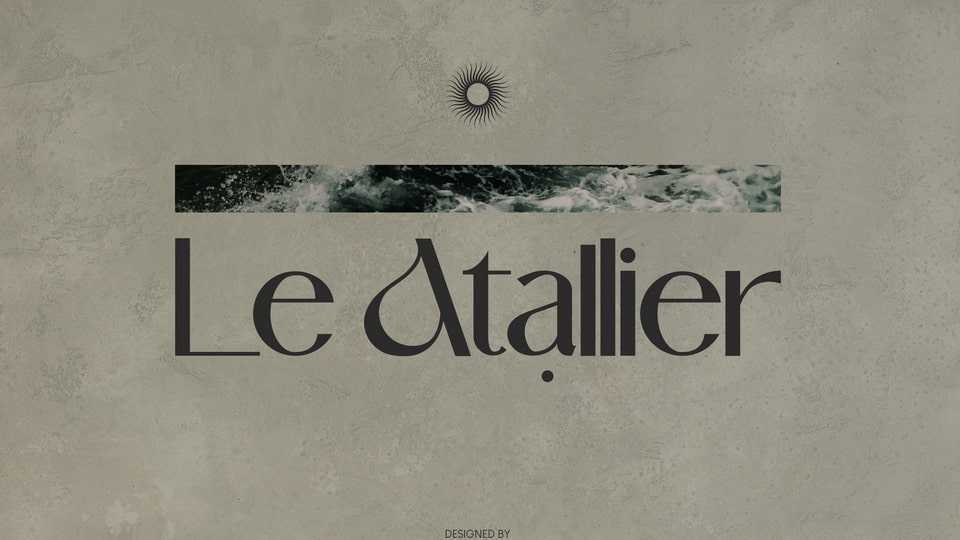
Download Le Atallier font, an elegant sans serif typeface that look classy. Le Atallier is perfect for logo brand, product packaging, advertisement, social media post, clothing brand, magazine headers and many more.